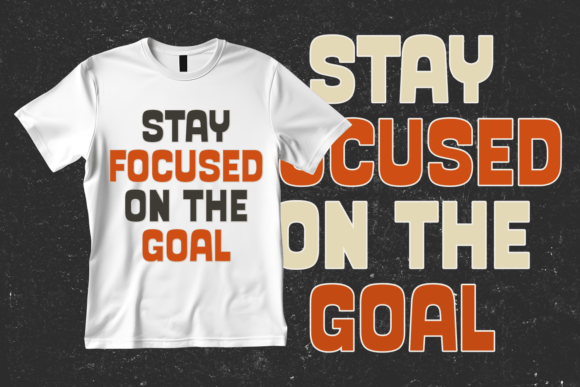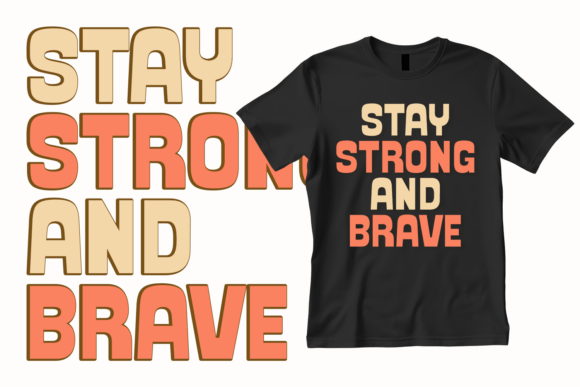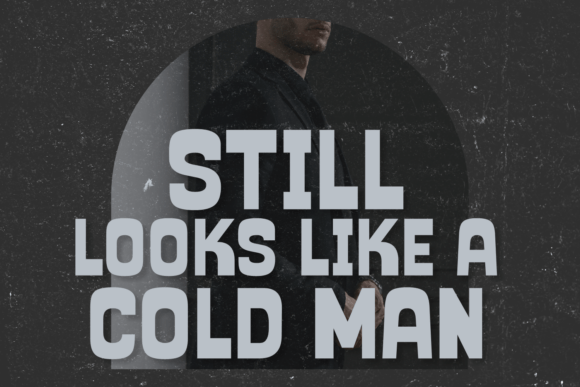
Introduction to First Moment Font
Dive into the timeless charm of the First Moment font.
Expertly crafted in Sans Serif and presenting a unique Vintage twist to Modern typography, its Elegant Lettering is a love letter to authentic Handlettering techniques Perfectly suited for Headlines, and designed as an eclectic mix – a Display Font alongside being a Classic Font, it effortlessly adds character to Letterhead and Poster Designs.
First Moment Font offers exceptional quality and versatility, making it a valuable addition to your design toolkit. Whether you’re creating for personal projects or commercial use, First Moment Font delivers professional results.